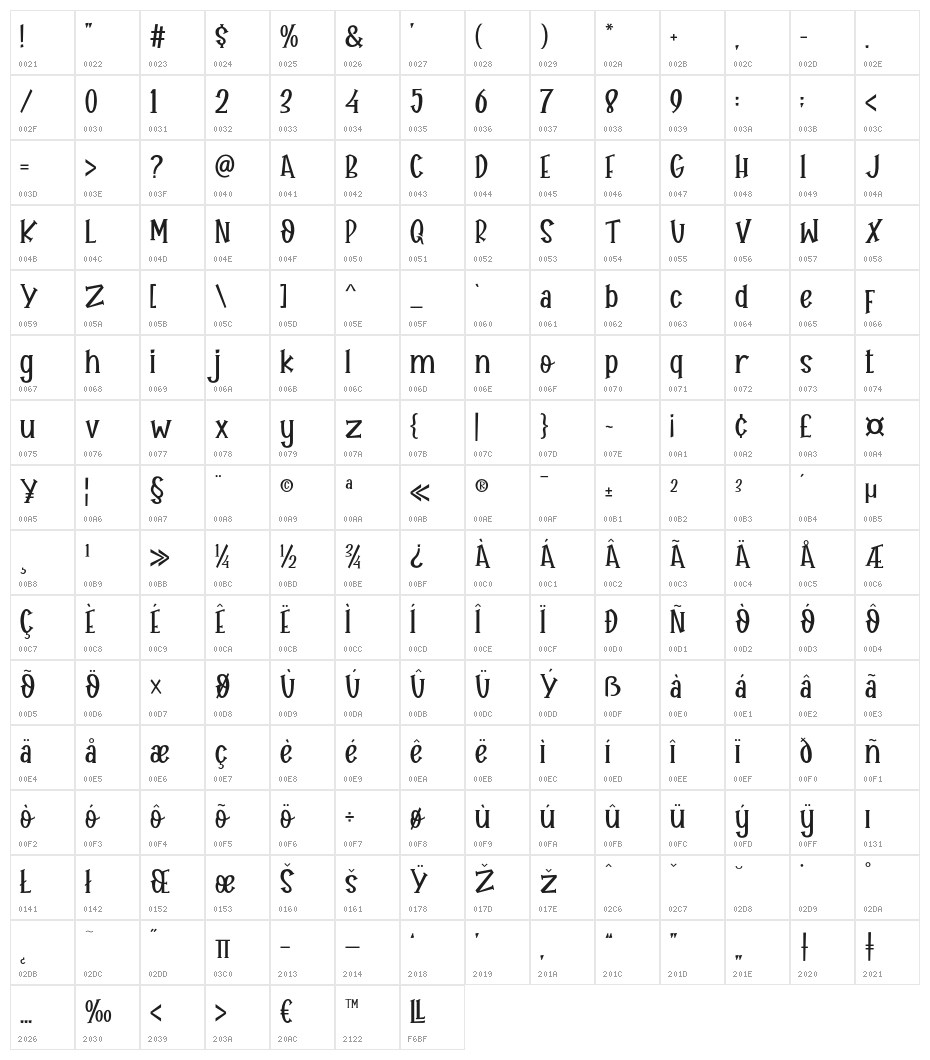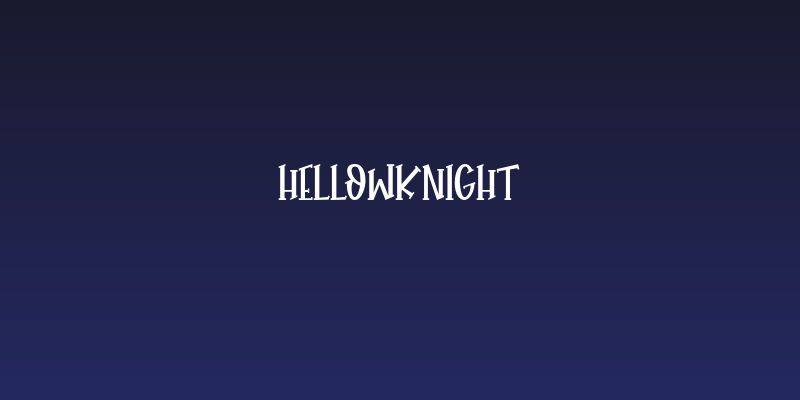
HellowKnight Font
✎ Cartoon
| Stile generale | Playful, Whimsical |
| Progetti proposti | Ideal for children's books, playful branding, creative posters, and whimsical invitations. |